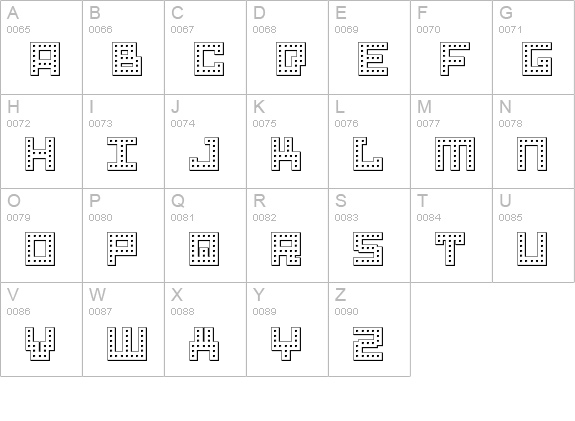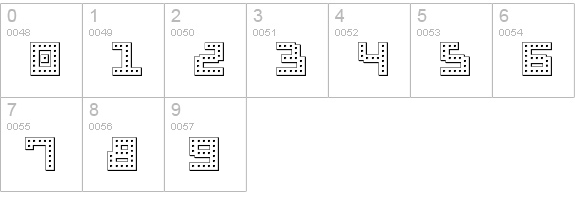
Drid Herder Outline font is a stylish and unique typeface that adds a modern touch to any design project. Its elegant outline design gives a sophisticated and eye-catching look, making it perfect for logos, headlines, and branding materials. This versatile font is free to download at FontsMarket.com, allowing you to easily incorporate it into your creative work without any cost. With its clean lines and contemporary feel, Drid Herder Outline font is sure to make a statement and elevate your designs to the next level. Download it today and start creating stunning visuals with this beautiful font.